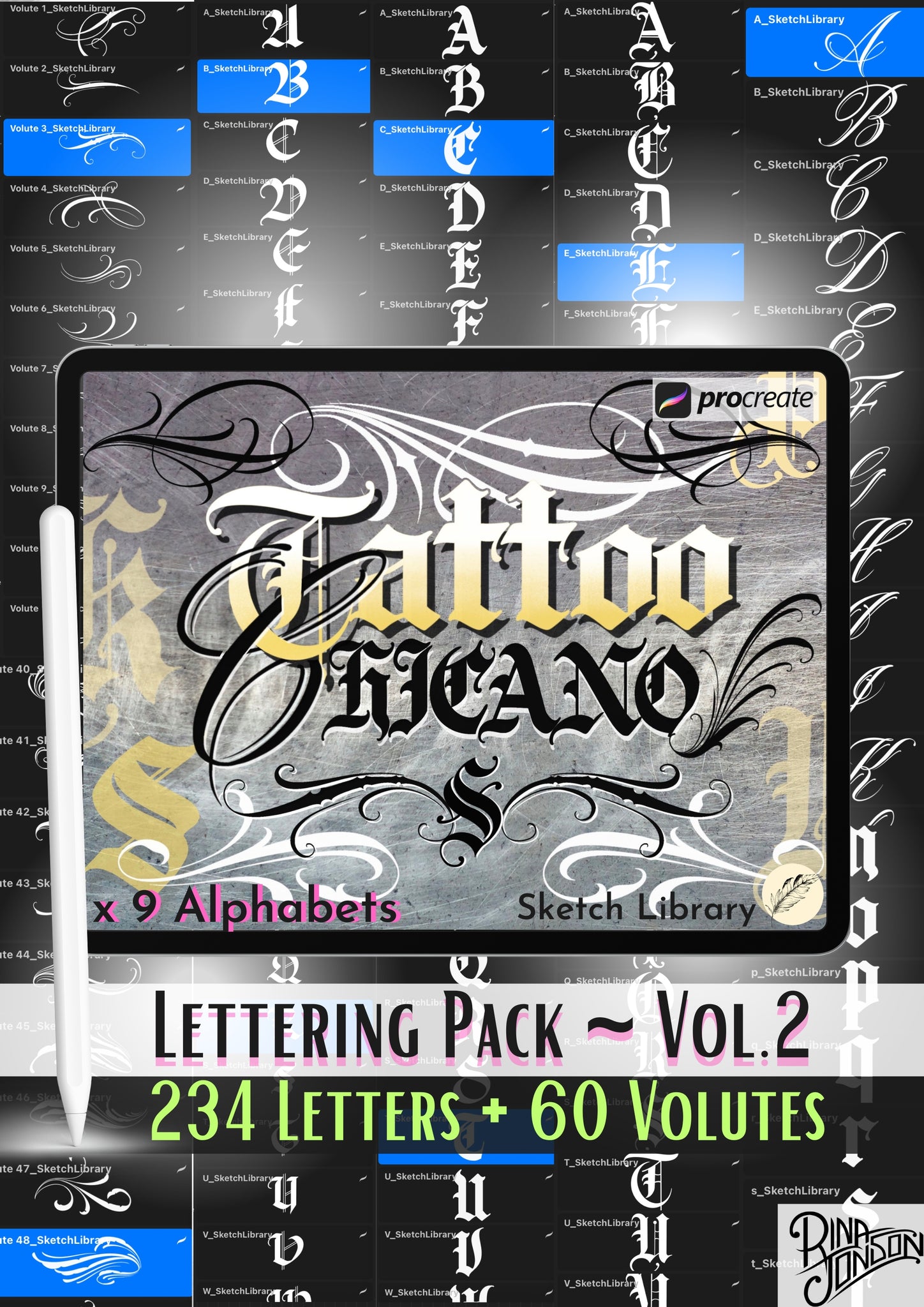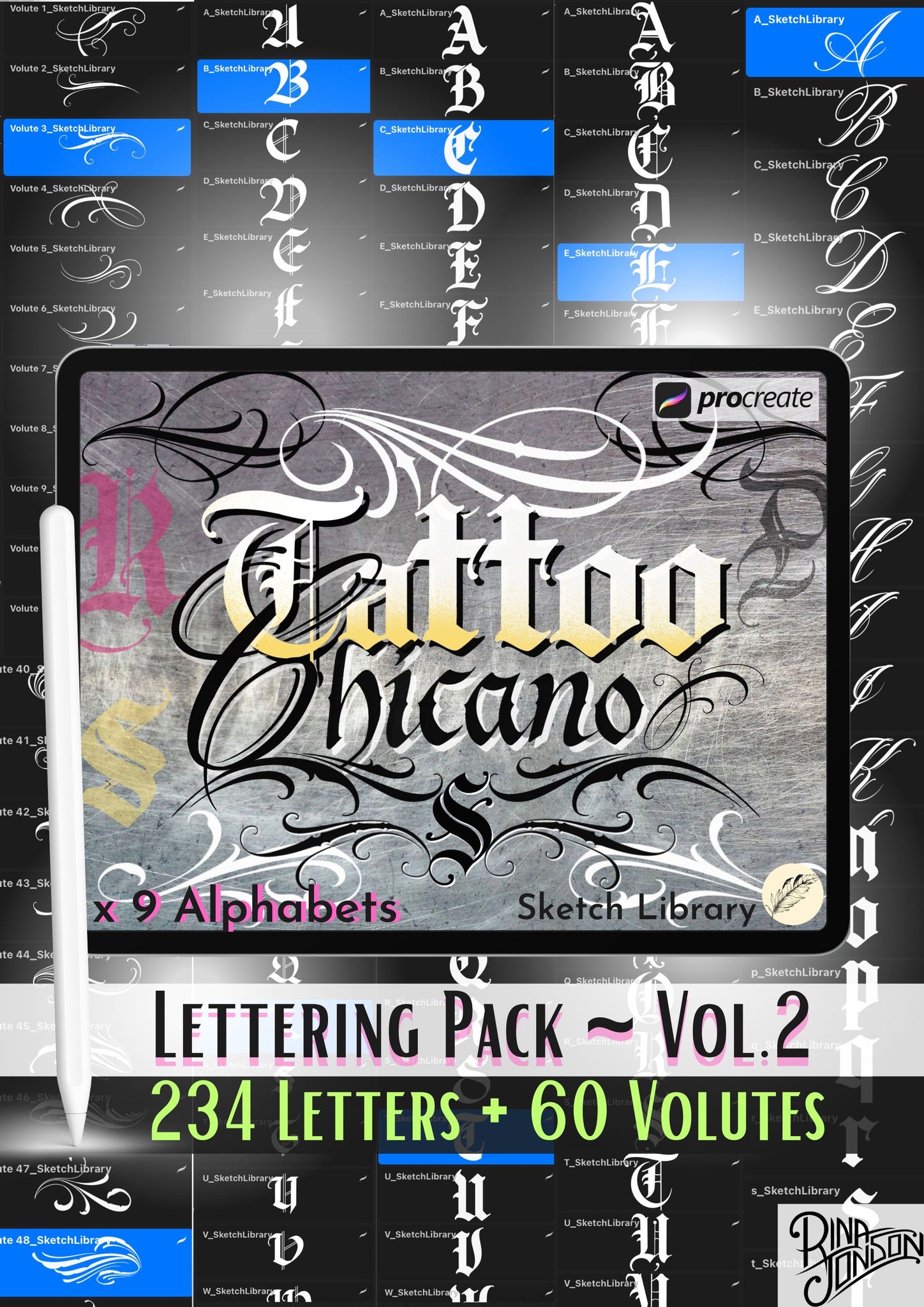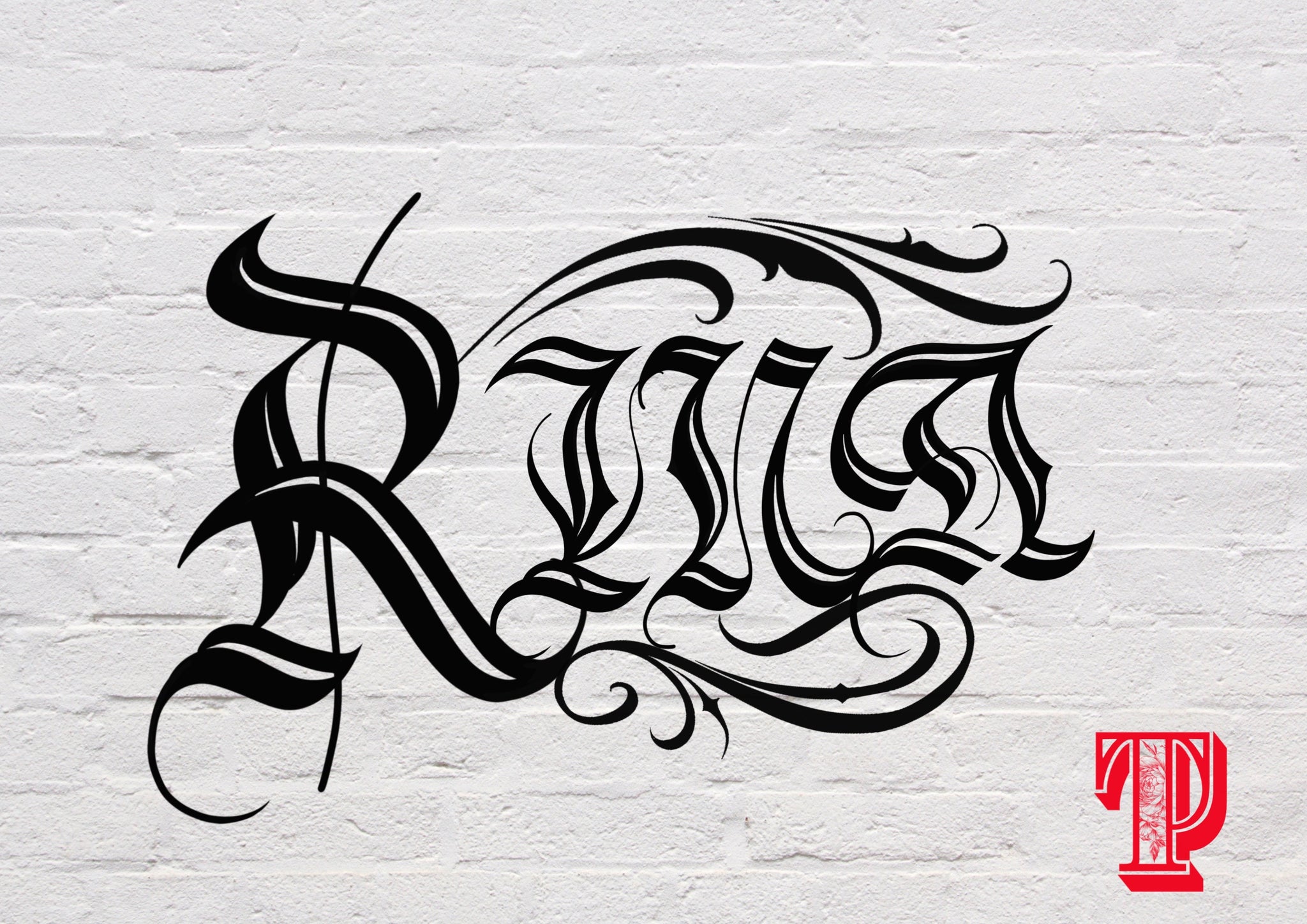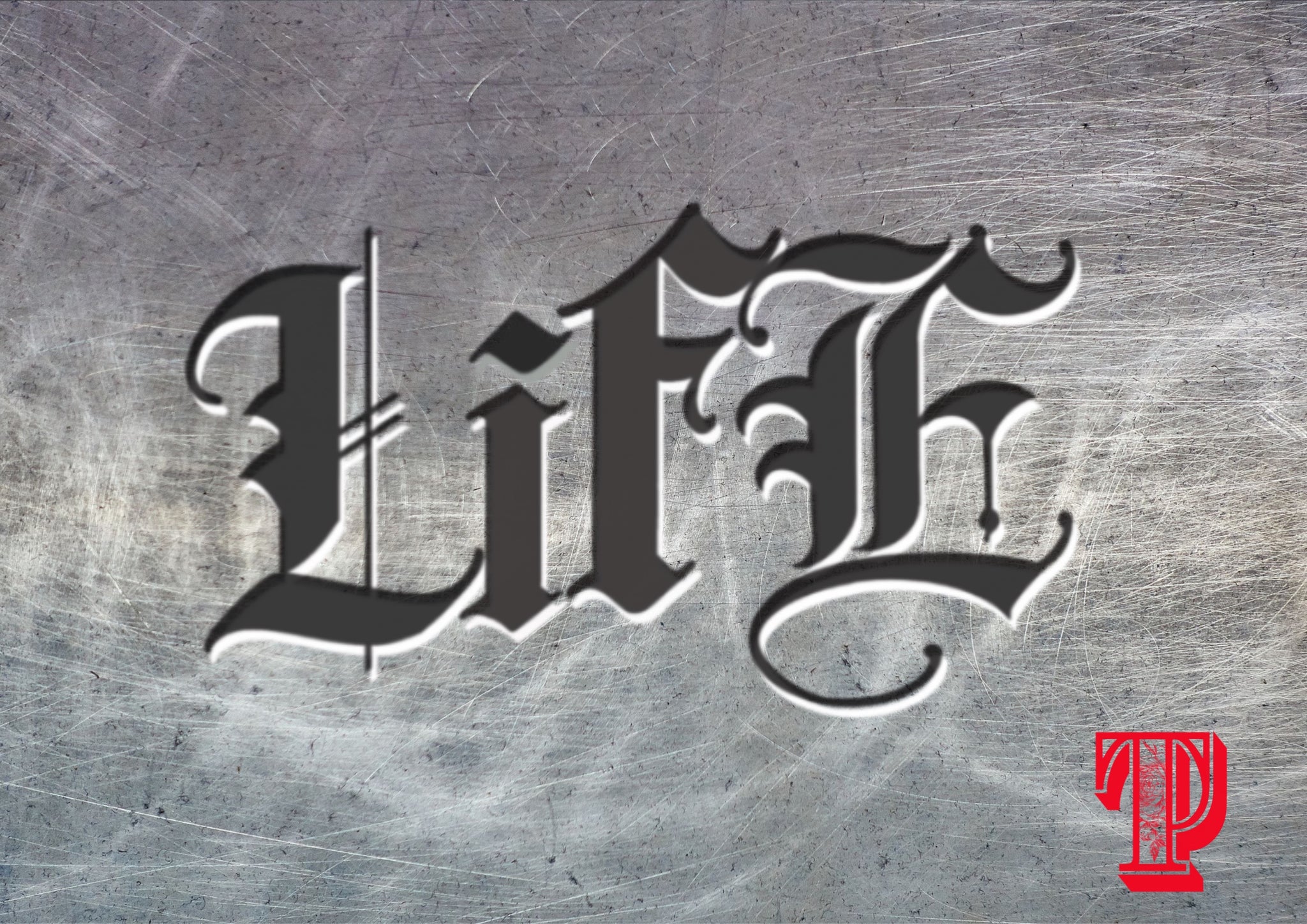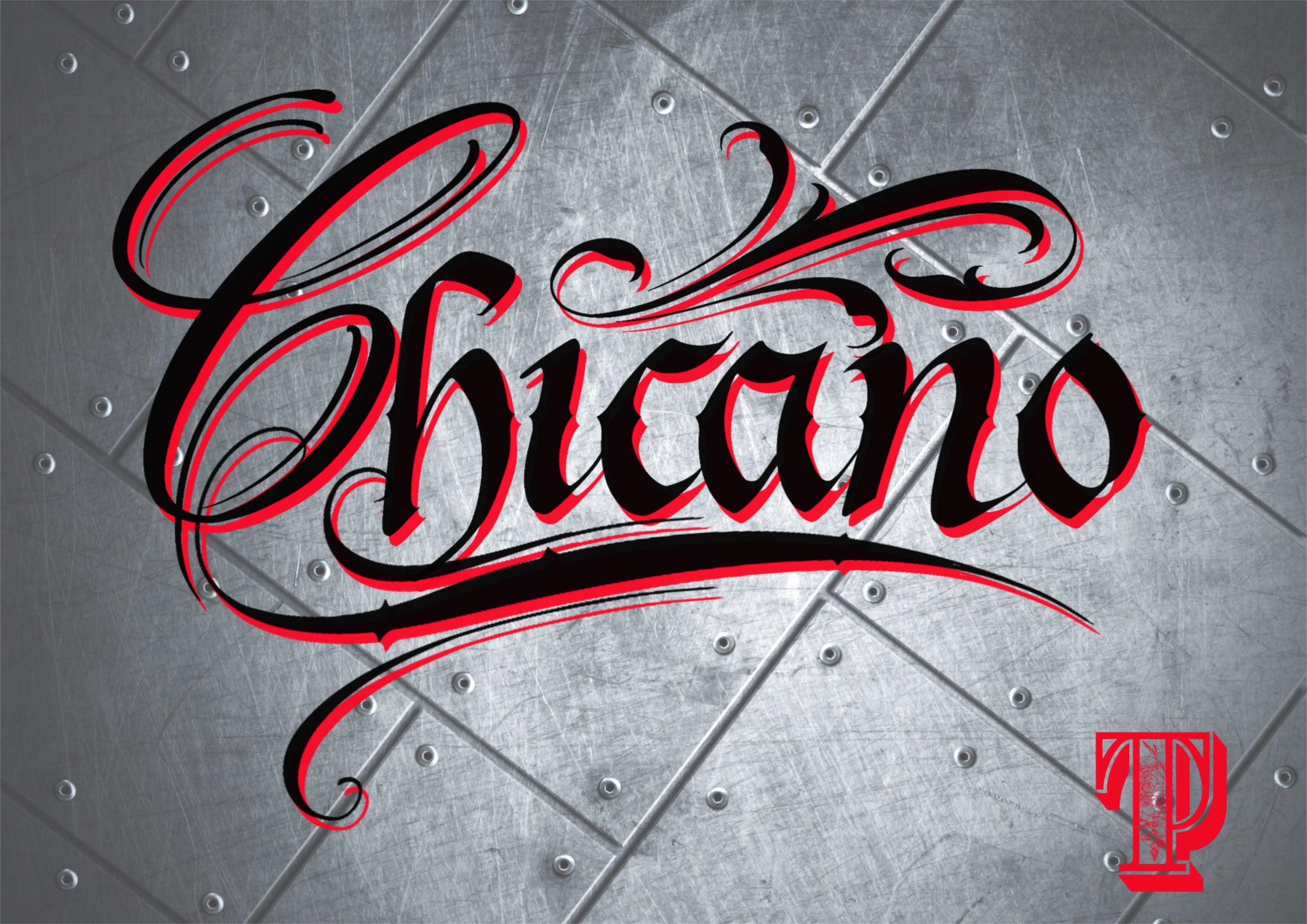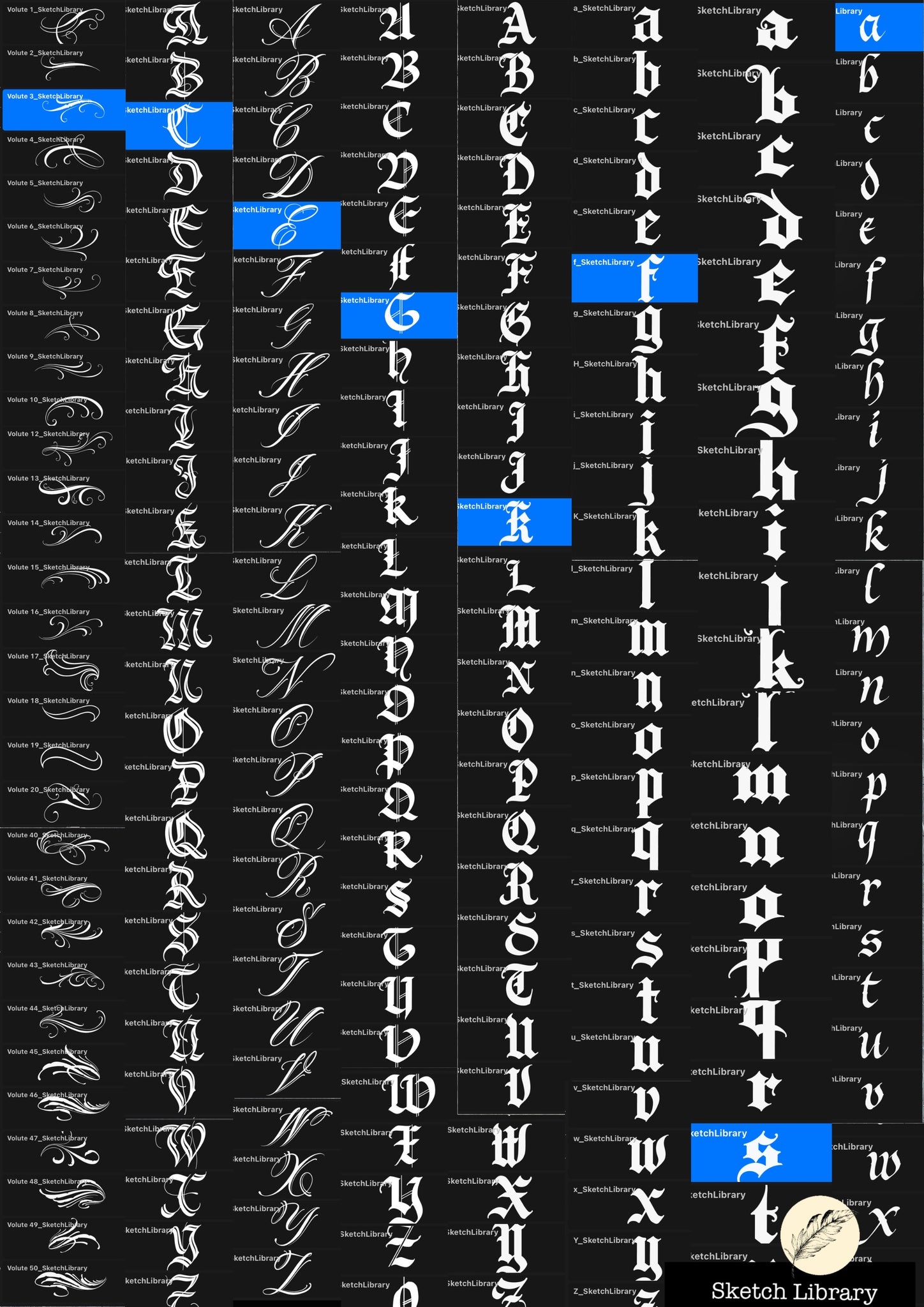
Chicano Lettering Pack vol.2, 9 Alphabets, 234 Chicano Gothic/Tattoo Letters brushes for Procreate,
234 Chicano / 9 Gothic / Tattoo lettering brushes for Procreate, font, tattoo, calligraphy, typography for Ipad & Ipad Pro
In this set of brushes, it's a Gothic, tattoo and calligraphy style initials alphabet created by tattoo artist: Rina Jonson (Yann Rajaonson), for the PROCREATE application.
- 5 X 26 upper case letters
- 4 X 26 lower case letters
- 62 swirls / volutes